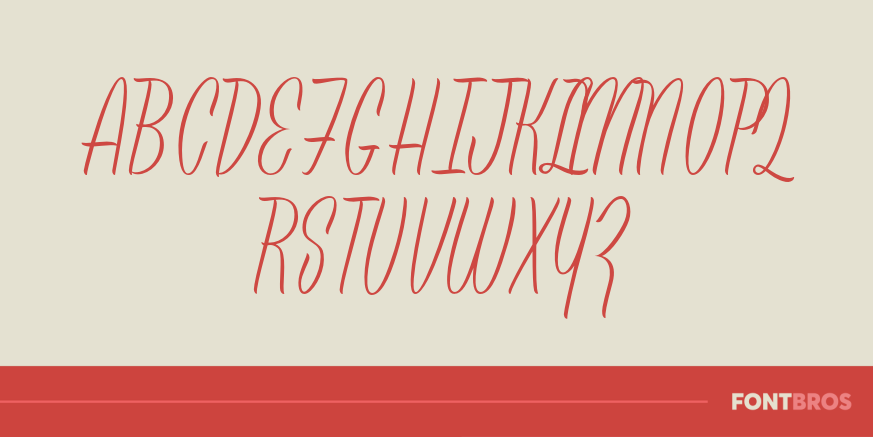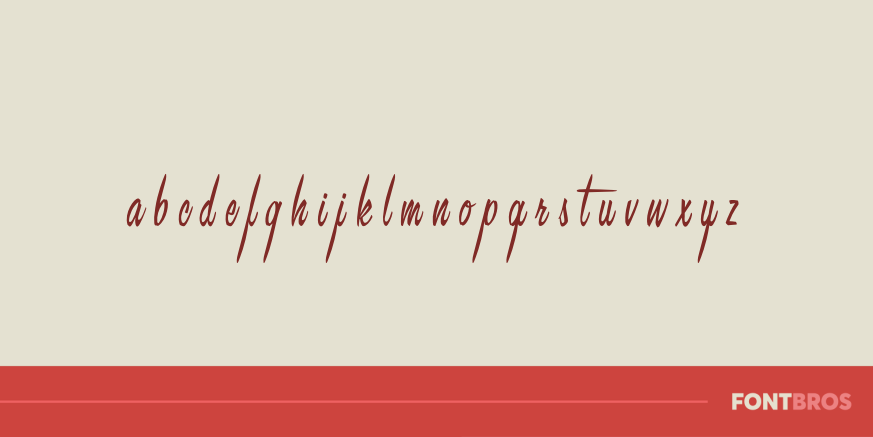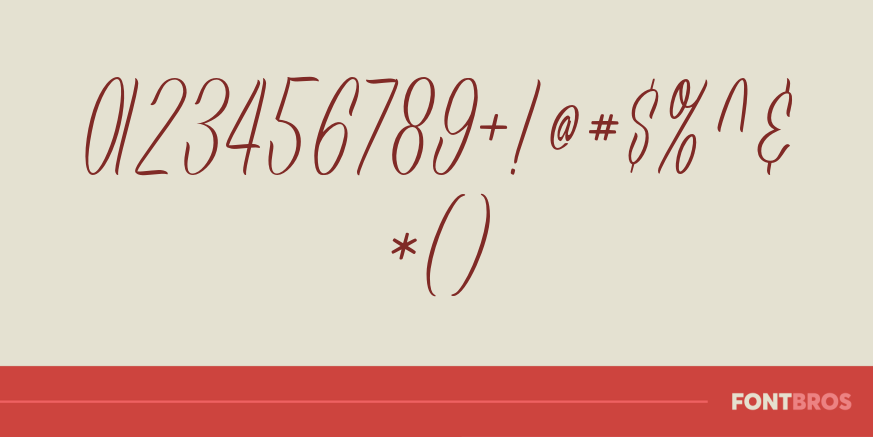
Leisure Script Marquee
Font Family by Font Diner
Let 'em know your mean business with this number! Just like our Leisure Script font but with gigantic caps to let 'em know you're back in town!